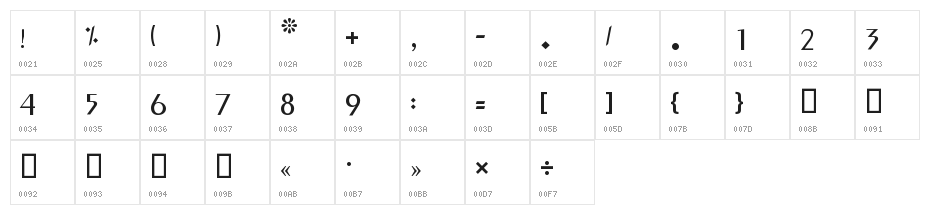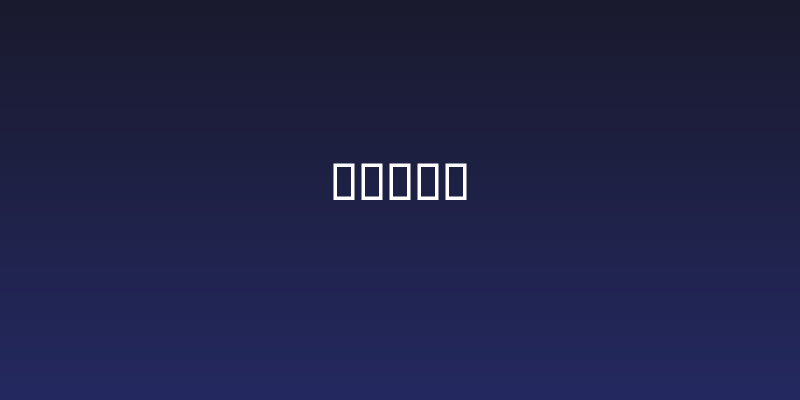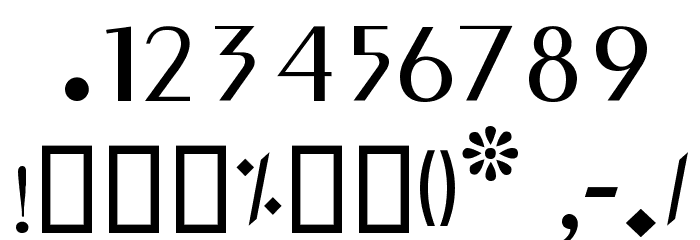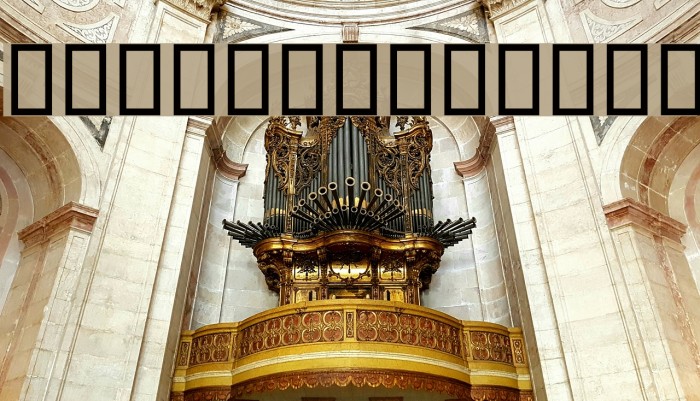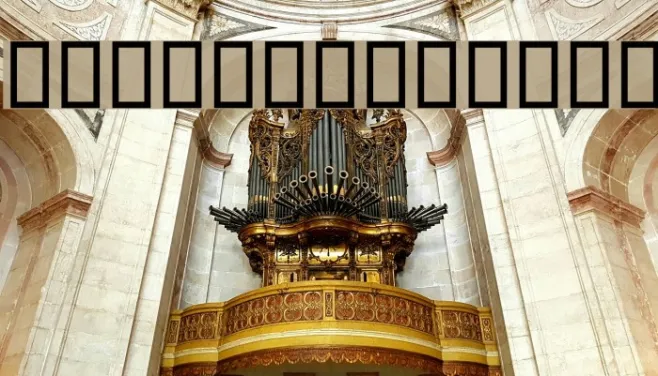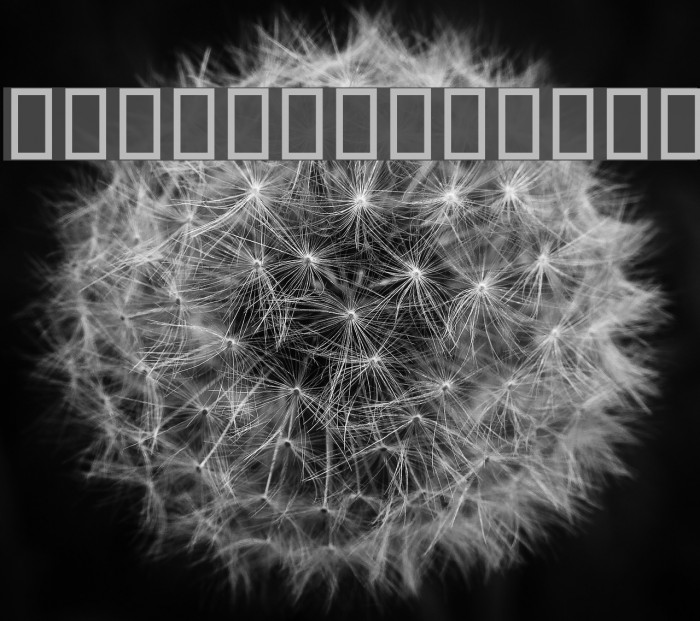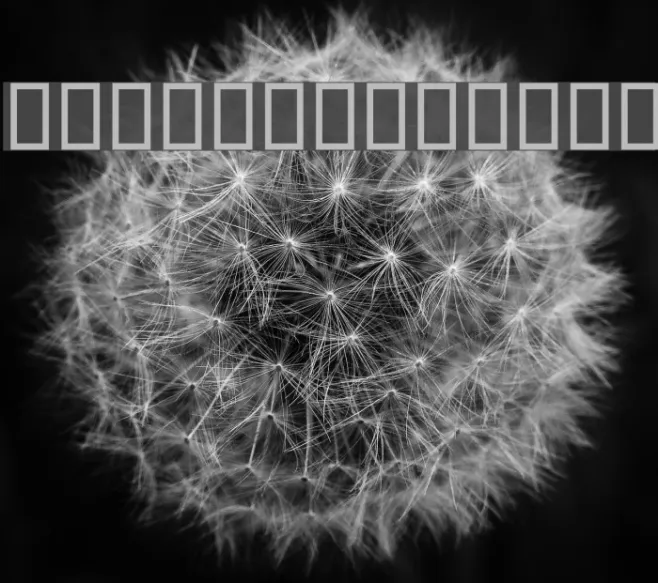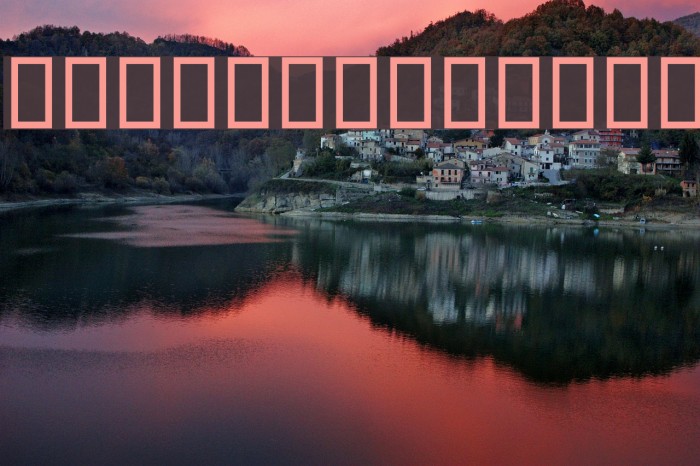
Owais Font
Owais Description
This font features a sophisticated and elegant design, characterized by its high contrast between thick and thin strokes. The numerals and special characters maintain a consistent style, with a slight slant that adds a dynamic feel. The overall appearance is refined, making it suitable for upscale and formal applications. The characters are well-proportioned, with a moderate width that ensures readability while maintaining an air of sophistication. The font's style is reminiscent of classic serif fonts, yet it incorporates modern elements that give it a contemporary edge.
| Proposed Projects | Ideal for luxury branding, wedding invitations, editorial design, and high-end product packaging. |